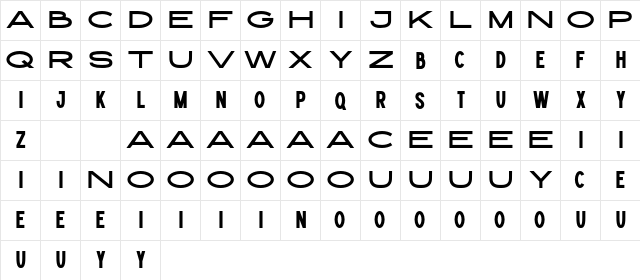
Foundry TypeFairy
DesignerTypeFairy
Design Context for High Cruiser Typeface
High Cruiser takes a measured approach to typography — its balanced proportions and neutral character make it a reliable workhorse for both digital and print work.
Pro Tip: Pair High Cruiser with a font of contrasting weight or personality to build a more expressive typographic hierarchy.